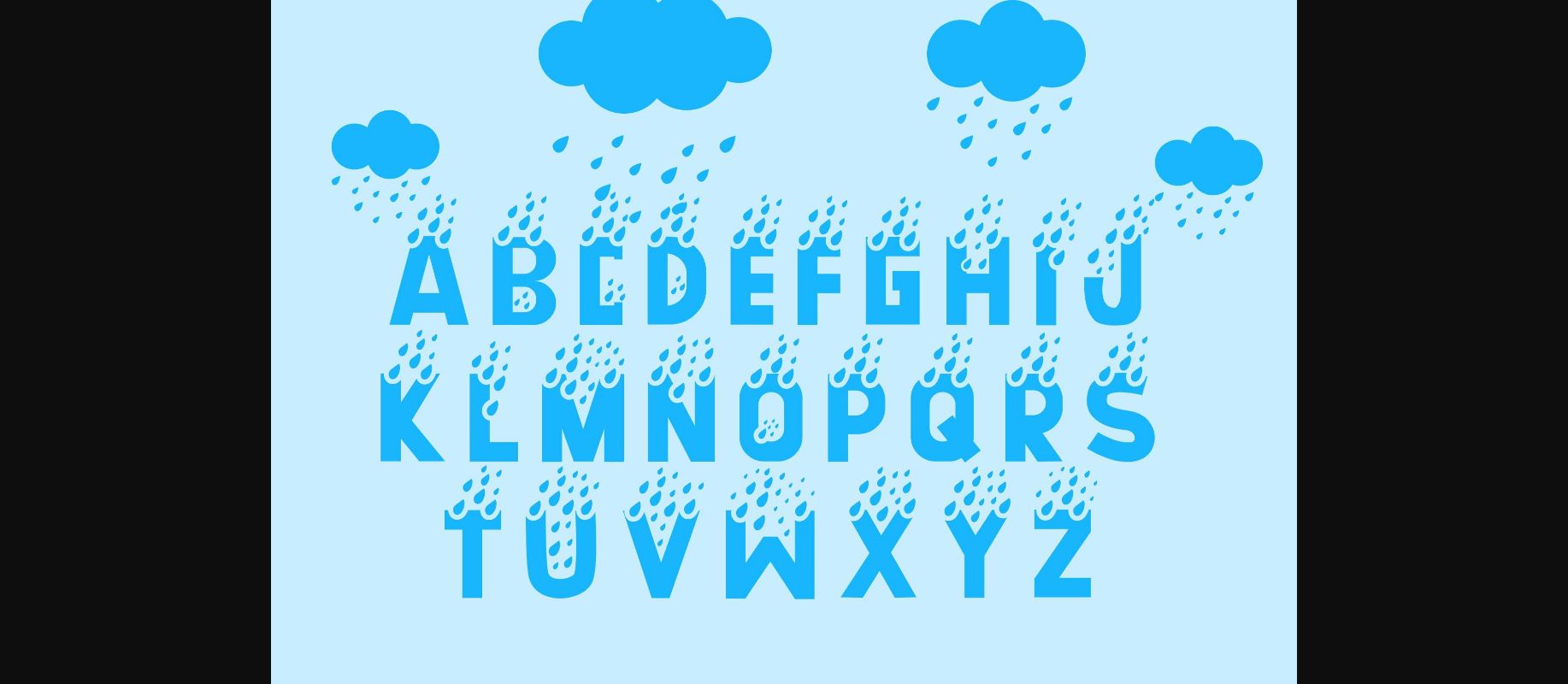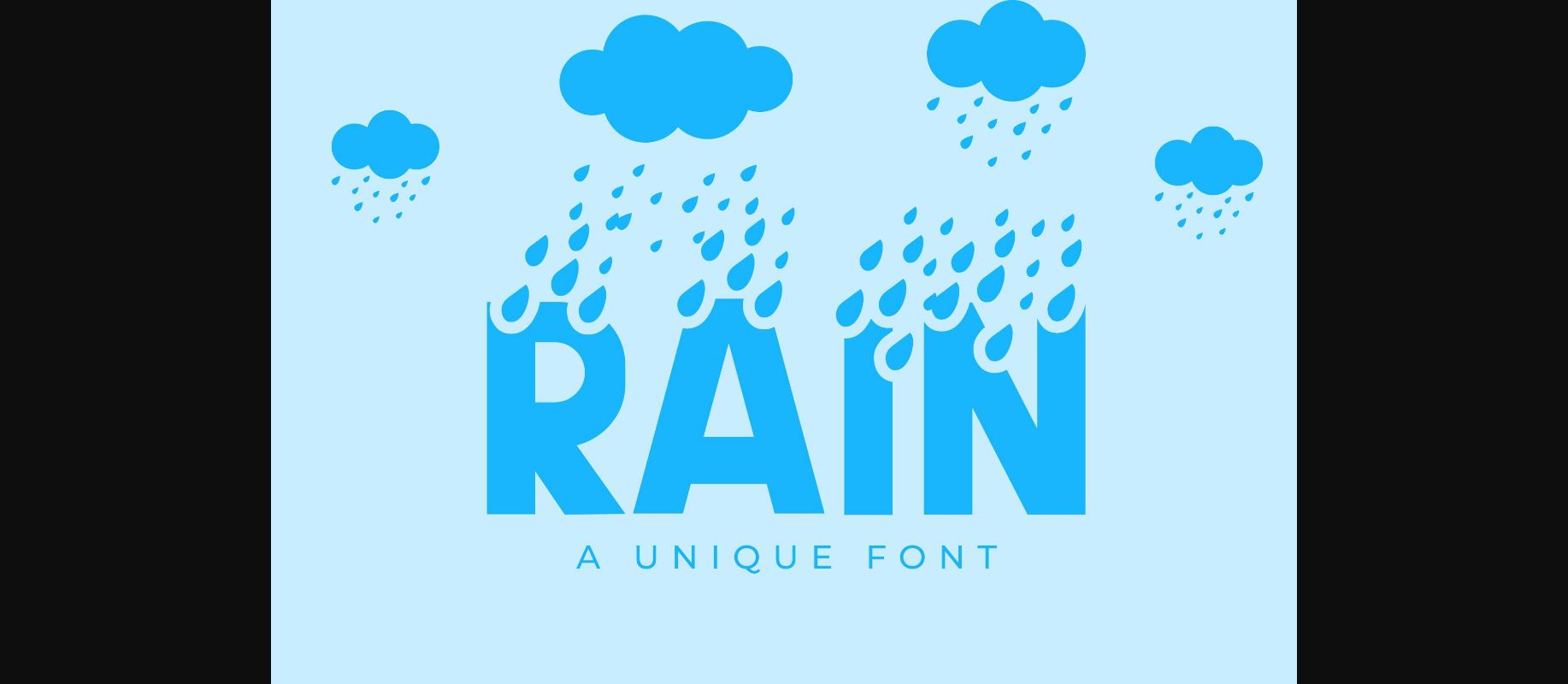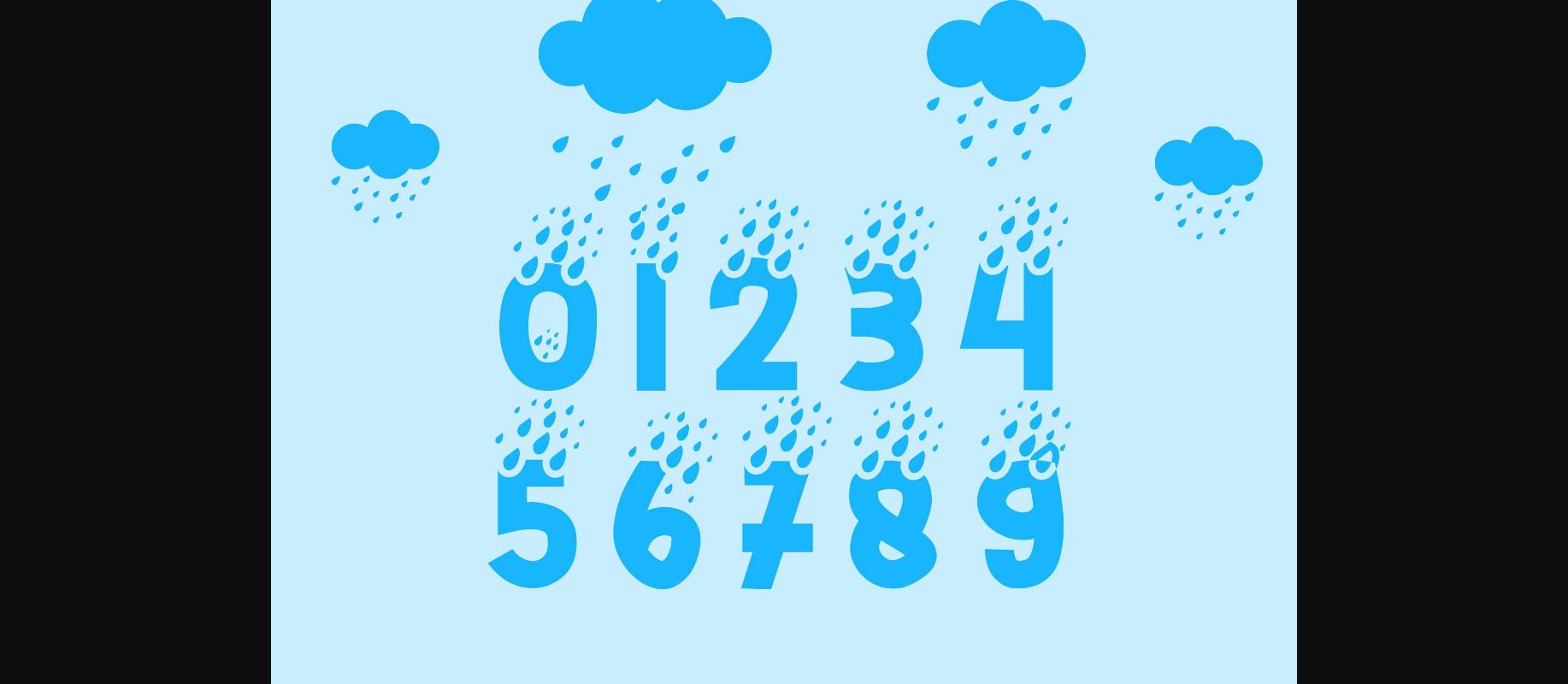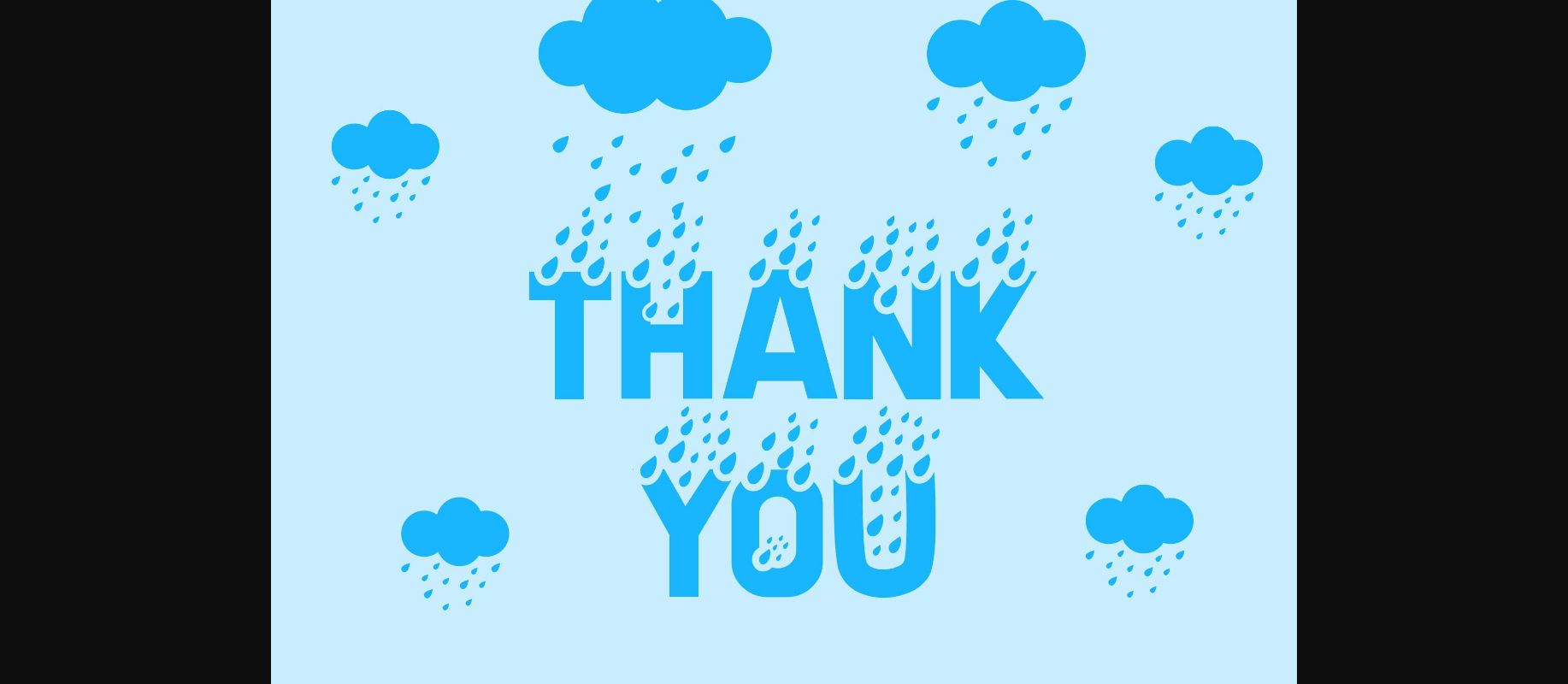
Rain Font
About Rain Font
Rain is a unique and attractive decorative to use for your new creative projects such as crafts, t-shirt designs, posters, digital designs, presentations, book covers, and or your favorite design ideas. Add them to your most creative ideas, and watch how it makes it visible!